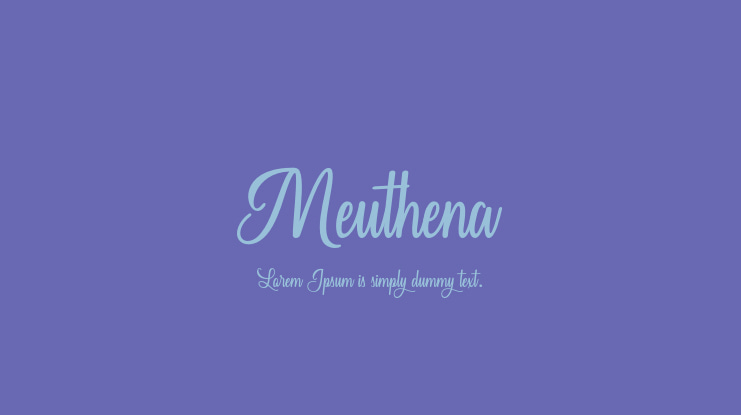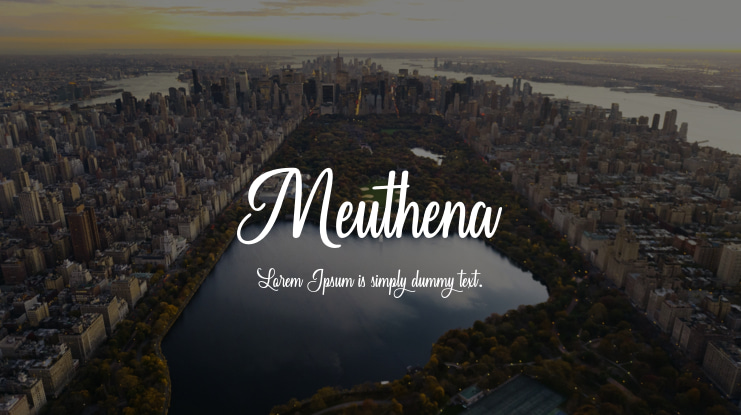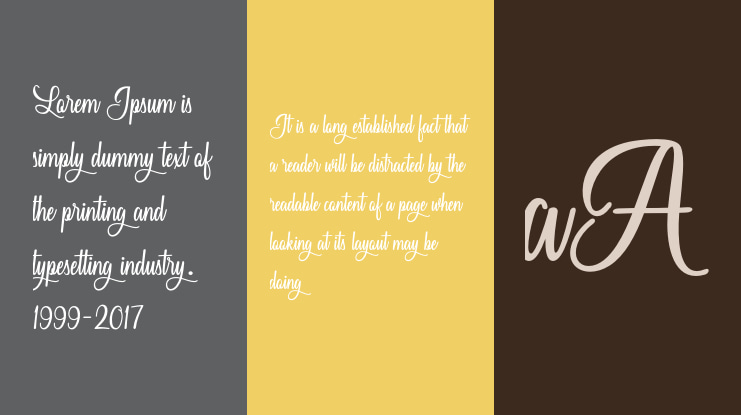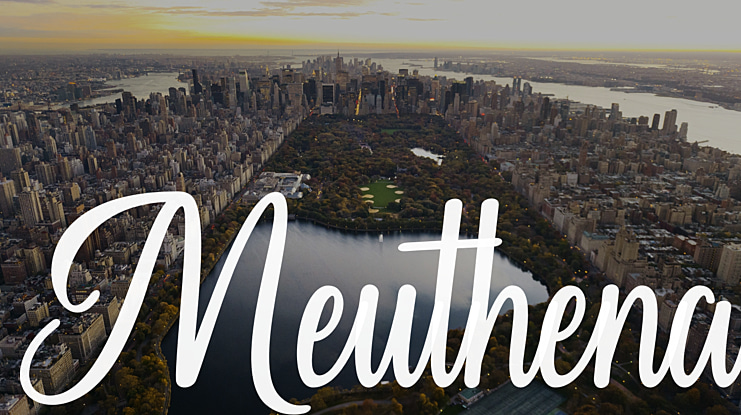
Meuthena Font
Enhance your design projects with the stylish Meuthena font. This handwritten typeface exudes a modern vibe and showcases flawless form, drawing inspiration from the everlasting beauty of classic calligraphy. Infuse your designs with elegance and sophistication by incorporating Meuthena.